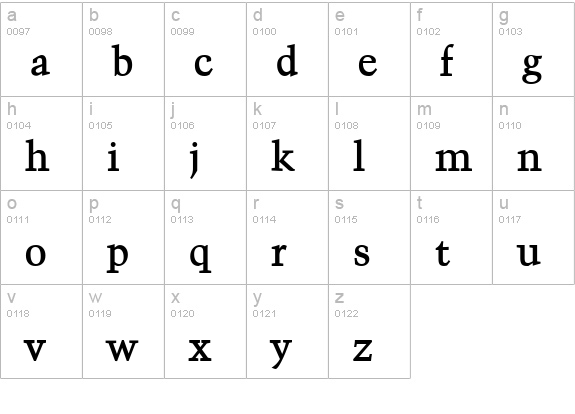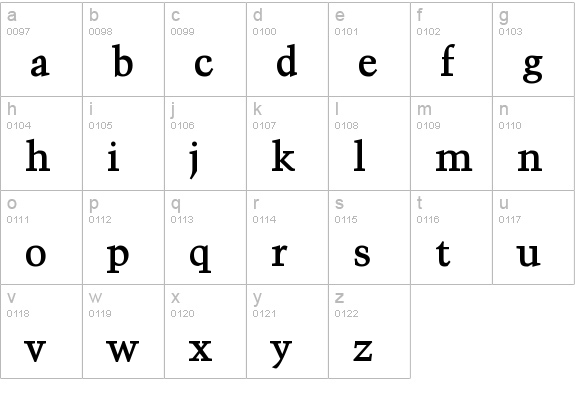
Congo Bold is a strong, high-contrast variant in the Congo typeface family \xE2\x80\x94 well suited to headlines, attention-grabbing titles, and strong calls-to-action.
Congo Bold font is a striking and versatile typeface that exudes confidence and modernity. Its bold and impactful design makes it perfect for headlines, titles, and branding projects that demand attention. With its clean lines and strong presence, Congo Bold stands out in any design application, adding a touch of elegance and sophistication. Best of all, Congo Bold font is available for free download at FontsMarket.com. Whether you're a designer looking for a powerful typeface for your next project or a business owner wanting to make a statement with your branding, Congo Bold is the perfect choice. Download it today and elevate your designs with this sleek and stylish font.